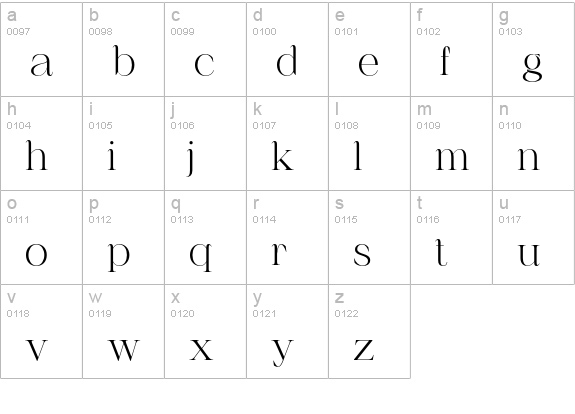
Chilia is a demo font in the General > Serif category, designed by craftsupplyco. It has been downloaded 60 times and is available for Windows, Mac and Linux.
Chilia font is a stunning and versatile typeface that adds a touch of elegance to any design project. With its sleek lines and modern aesthetic, Chilia is the perfect choice for both digital and print applications. This font features a wide range of characters and glyphs, making it ideal for creating eye-catching headlines, logos, and more.